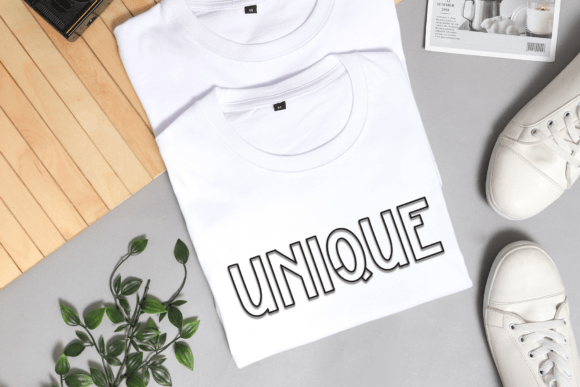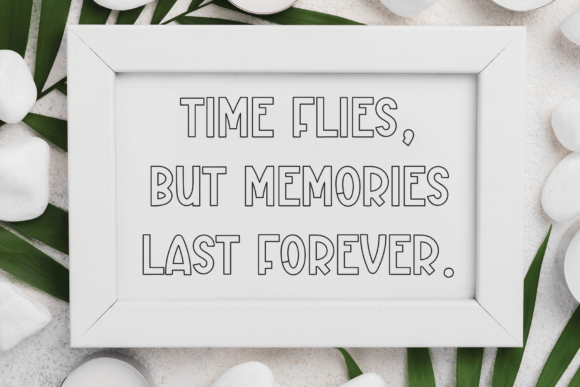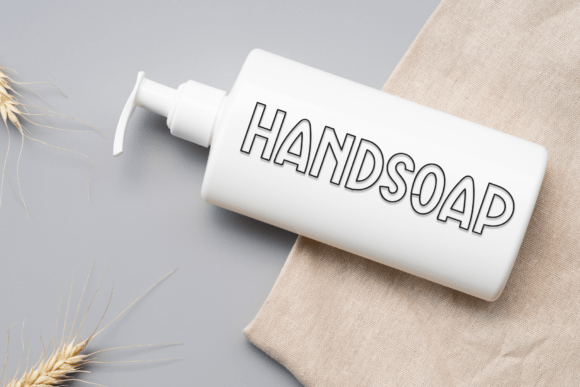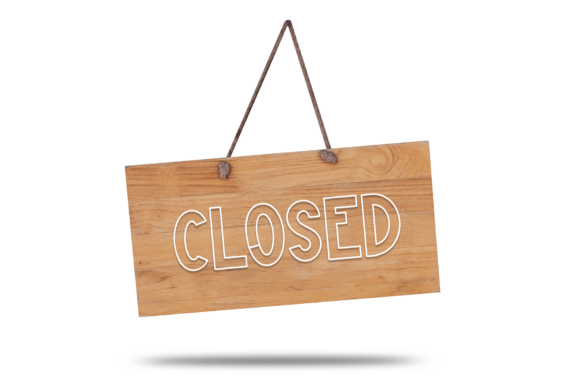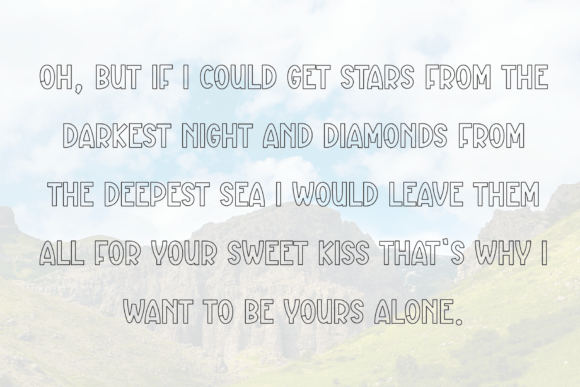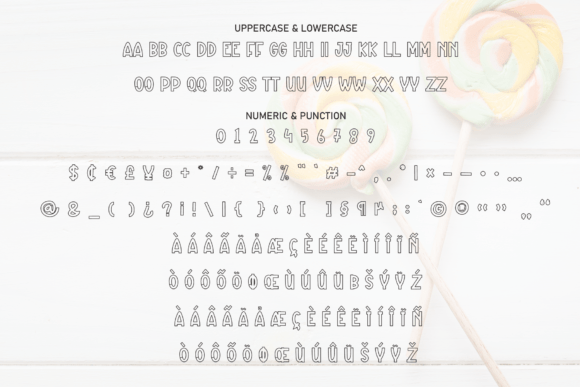
Candy Handmade Font: The Perfect Blend of Simplicity and Friendliness
In the world of typography, fonts play a crucial role in conveying the tone and personality of a brand. For designers and crafters, finding the right font can make all the difference in creating visually appealing and effective designs. If you’re on the hunt for a font that combines simplicity with a friendly, approachable vibe, look no further than the Candy Handmade Font.
What is Candy Handmade Font?
Candy Handmade Font is a casual and neat display font that has been carefully crafted to capture the essence of modern handwritten typography with a polished finish. Its clean lines, balanced letterforms, and subtle rounded edges make it an ideal choice for a wide range of design applications, from branding and headlines to packaging and digital content.
Key Features of Candy Handmade Font
- Clean Lines: The font features clean lines that give it a crisp and modern look, making it perfect for designs that require a touch of sophistication.
- Balanced Letterforms: The letterforms are carefully balanced to ensure that the font is easy to read and visually appealing.
- Subtle Rounded Edges: The subtle rounded edges add a touch of warmth and friendliness to the font, making it perfect for designs that require a more approachable tone.
- Versatile Style: The font has a versatile style that makes it suitable for a wide range of design applications, from formal to informal.
Why Choose Candy Handmade Font?
So, why should you choose Candy Handmade Font for your next design project? Here are just a few reasons:
- Warm and Inviting: The font adds a warm and inviting touch to any design, making it perfect for brands that want to convey a sense of friendliness and approachability.
- Clarity and Charm: The font delivers clarity and charm in equal measure, making it perfect for designs that require both readability and visual appeal.
- Easy to Read: The font is easy to read, even at small sizes, making it perfect for digital content and packaging.
- Highly Versatile: The font is highly versatile and can be used for a wide range of design applications, from branding and headlines to packaging and digital content.
Design Applications for Candy Handmade Font
Candy Handmade Font is a highly versatile font that can be used for a wide range of design applications, including:
- Branding: Use the font to create a unique and memorable brand identity that conveys a sense of friendliness and approachability.
- Headlines: Use the font to create eye-catching headlines that grab attention and convey a sense of warmth and invitation.
- Packaging: Use the font to create packaging designs that are both visually appealing and easy to read.
- Digital Content: Use the font to create digital content that is both engaging and easy to read, from social media posts to blog articles.
Tips for Using Candy Handmade Font
Here are a few tips for using Candy Handmade Font in your designs:
- Pair it with Other Fonts: Pair the font with other fonts to create a unique and visually appealing typography.
- Experiment with Colors: Experiment with different colors to find the perfect combination that complements your brand.
- Use it Consistently: Use the font consistently across all your designs to create a cohesive brand identity.
In conclusion, Candy Handmade Font is a highly versatile and visually appealing font that is perfect for designers and crafters looking for a font that combines simplicity with a friendly, approachable vibe. With its clean lines, balanced letterforms, and subtle rounded edges, it’s ideal for a wide range of design applications, from branding and headlines to packaging and digital content. So why not give it a try and see how it can elevate your designs?